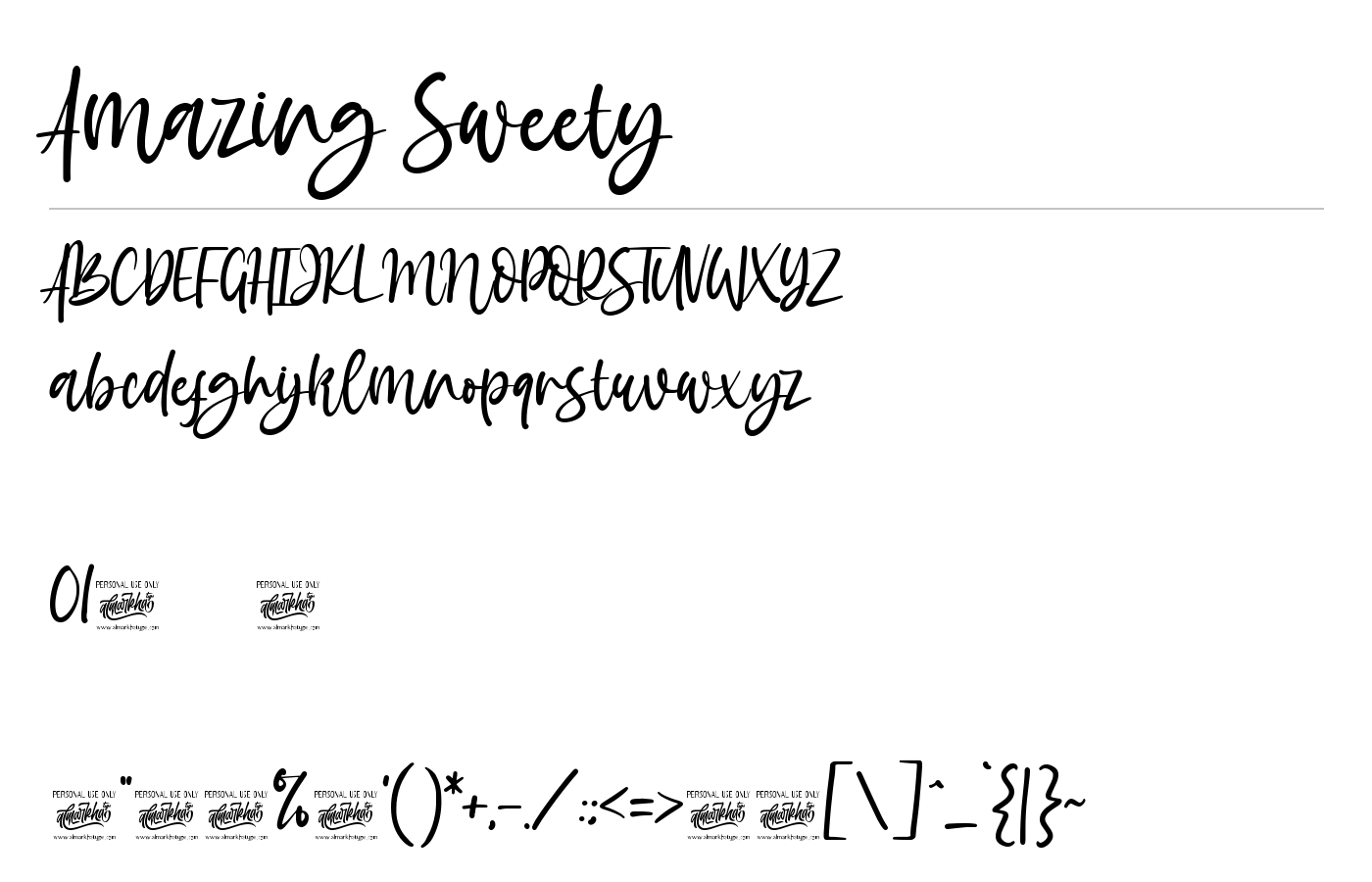
Amazing Sweety is a charming handwritten script font that features a playful yet elegant style with smooth, flowing lines and varied stroke widths. Its casual, friendly look makes it perfect for personal branding, invitations, and creative projects seeking a warm and approachable feel. This font works especially well for logos and headlines where a lively, human touch is desired.
Amazing Sweety Font
About Amazing Sweety Font